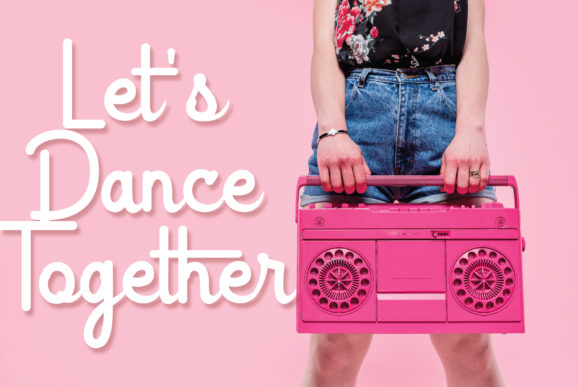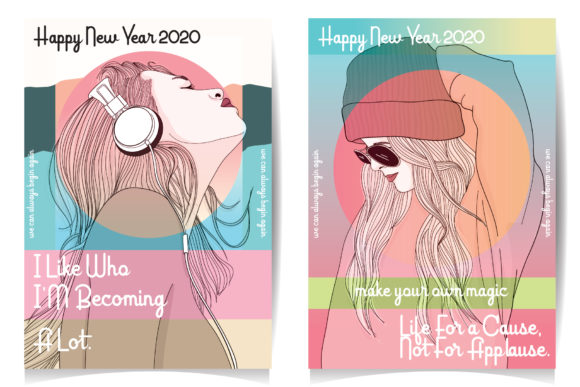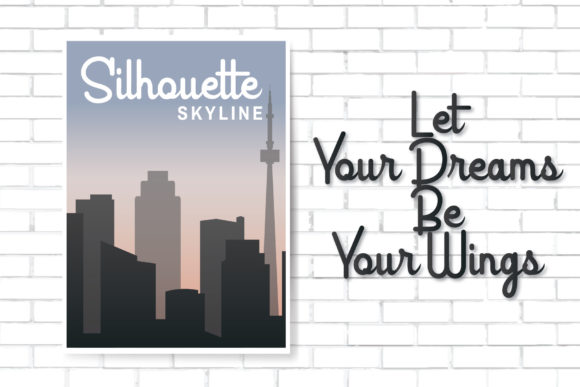
Introduction to Rectoverso Script Font
Rectoverso is an incredibly playful and unique handwritten font that will turn any craft project into a piece of art.
Key Features of Rectoverso Script Font
Why Choose Rectoverso Script Font?
Rectoverso Script Font offers exceptional quality and versatility, making it a valuable addition to your design toolkit. Whether you’re creating for personal projects or commercial use, Rectoverso Script Font delivers professional results.